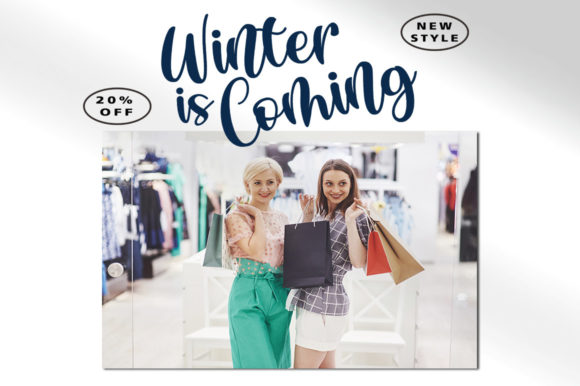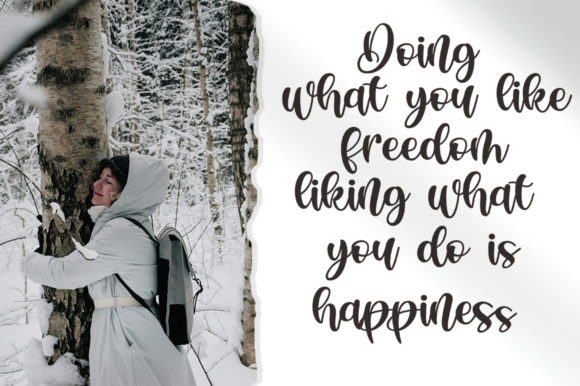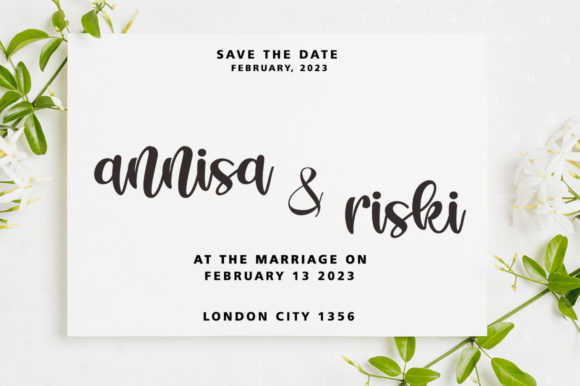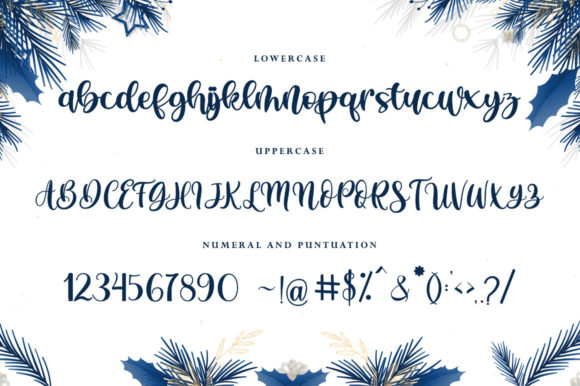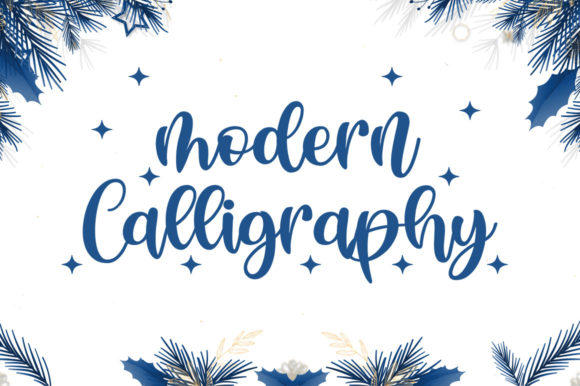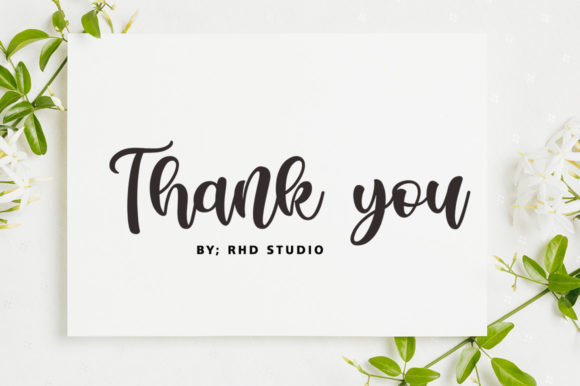
Introduction to Rosbella Font
Have you ever been working on a creative project, pouring your heart and soul into it, only to feel like something is missing? You know, that spark that sets your design apart from the rest? For many designers, this moment of inspiration is what makes all the hard work worth it. And for those who crave a little extra magic, we’ve got just the thing: the Rosbella Font.
This lovely script font is a game-changer, featuring charming, playful characters that seem to dance along the baseline. With its high-quality design and transparent background, Rosbella Font is the perfect addition to any creative project. Whether you’re a seasoned pro or just starting out, this versatile font is sure to elevate your design to the next level.
Key Features of Rosbella Font
- Unique, elegant design with a touch of sophistication, making it perfect for various creative projects
Honest Review: Rosbella Font
I recently stumbled upon the Rosbella Font while searching for a high-quality design resource for my creative project. I was immediately drawn to its elegant and sophisticated look, which I knew would be perfect for a luxury branding project.
Here are some things that work well with the Rosbella Font:
- ✨ High-quality design: The font is meticulously crafted with attention to detail, resulting in a crisp and clean appearance.
- ✨ Versatility: The font is suitable for a wide range of creative projects, from branding and marketing materials to digital products and publications.
- ✨ Transparent background: The font’s transparent background makes it easy to combine with other design elements and achieve a seamless look.
- ⚠️ Limited character set: The font only includes a basic character set, which may limit its usability for more complex projects.
- ⚠️ No extended family: The font does not have an extended family or variations, which may make it less suitable for projects requiring a specific style or tone.
Overall, I was impressed with the Rosbella Font’s design and versatility. While it has some limitations, it remains a valuable resource for designers working on creative projects.
The Rosbella Font is a high-quality design resource that can be used in various creative projects. This font is ideal for projects that require a unique and elegant touch.
Getting the Most Out of Rosbella Font
To get the most out of the Rosbella Font, use it in combination with other design elements such as graphics and images. You can also experiment with different font sizes, colors, and styles to create a unique design effect.
The Rosbella Font is ideal for use in various creative projects such as:
- Printed materials
Alternatives to Rosbella Font
The Great Vibes Font is a high-quality script font perfect for creative projects, especially those requiring a more elegant and sophisticated look. It’s ideal for use in logos, branding materials, and other design elements where a touch of sophistication is needed.
Compared to Rosbella Font, Great Vibes Font has a more elegant and refined feel, making it suitable for high-end design projects. However, it lacks the cursive feel of Rosbella Font, making it less suitable for handwritten-style designs.
The Alex Brush Font is a unique and beautiful script font that’s perfect for designers looking for a high-quality design resource. It’s ideal for use in creative projects, such as wedding invitations, greeting cards, and other design elements where a touch of elegance is needed.
Compared to Rosbella Font, Alex Brush Font has a more refined and sophisticated feel, making it suitable for high-end design projects. However, it lacks the cursive feel of Rosbella Font, making it less suitable for handwritten-style designs.
Yes, the Rosbella Font includes a transparent background, making it easy to use with images and other design elements. This feature is especially useful for creating visually appealing designs that require a seamless integration of text and graphics.